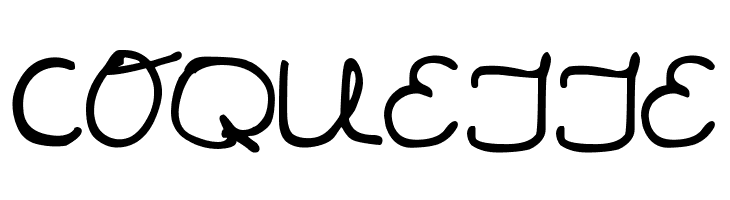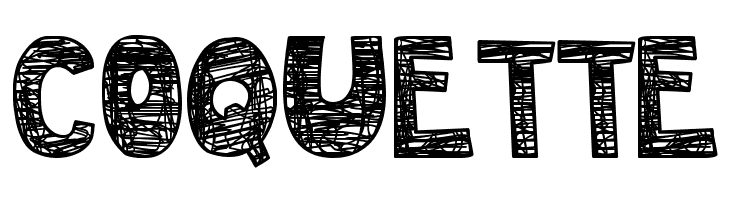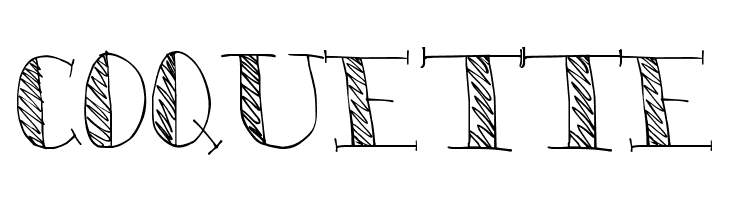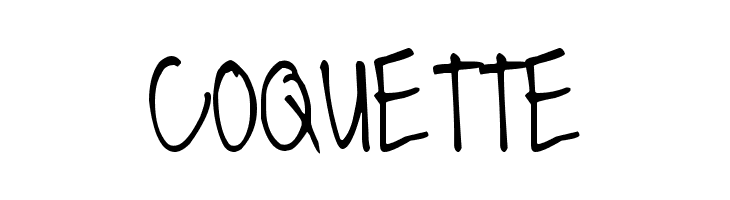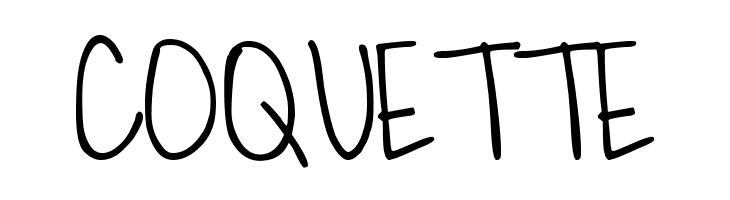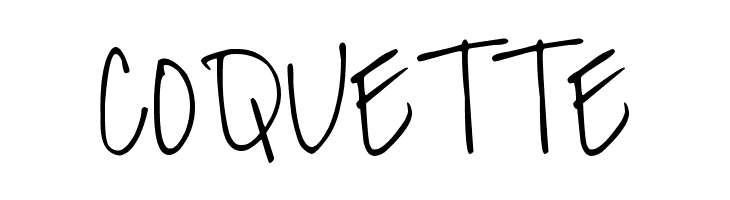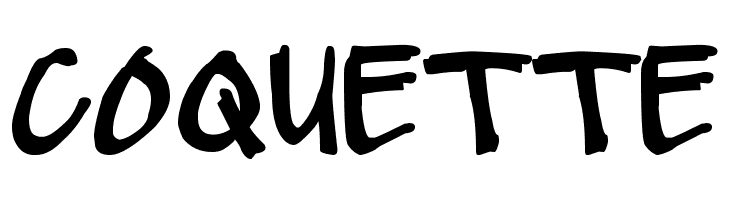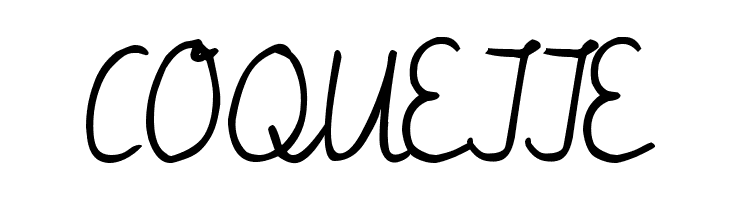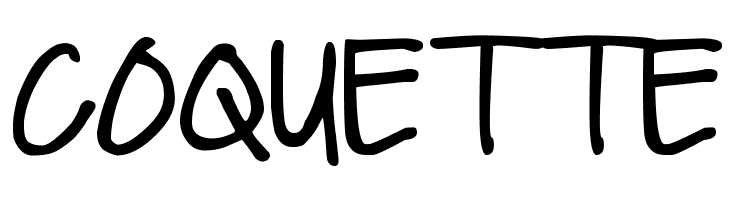
A bold, playful handwritten font with a casual and friendly style.
A playful, handwritten font with smooth, rounded strokes and a casual vibe.
A bold, hand-drawn font with a playful, scribbled texture.
A playful, casual handwritten font with fluid, connected strokes.
A playful, cursive handwritten font with a casual and friendly style.
A playful, casual handwritten font with flowing strokes and a friendly appearance.
A playful, casual handwritten font with a smooth, rounded style.
A playful, handwritten font with a casual and dynamic style.
A playful, hand-drawn font with a sketch-like, whimsical style.